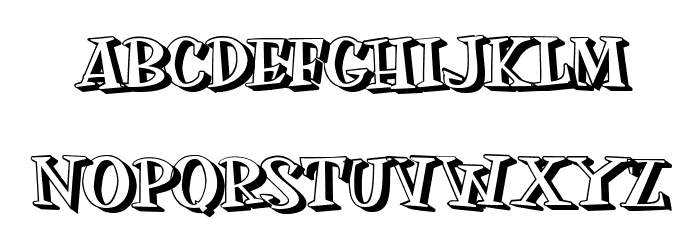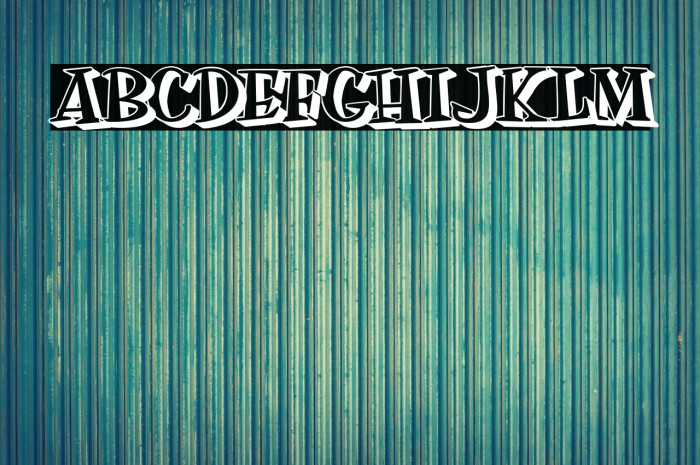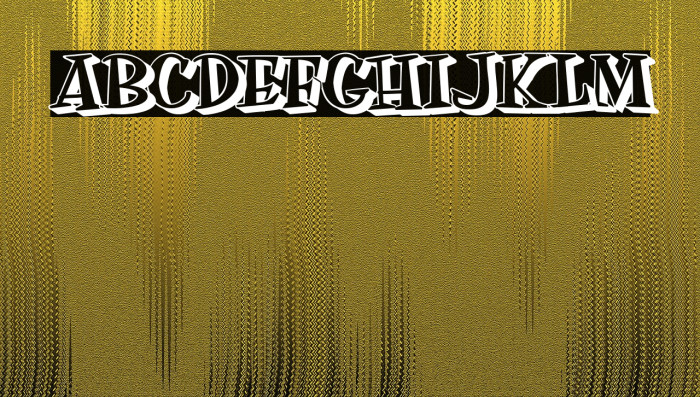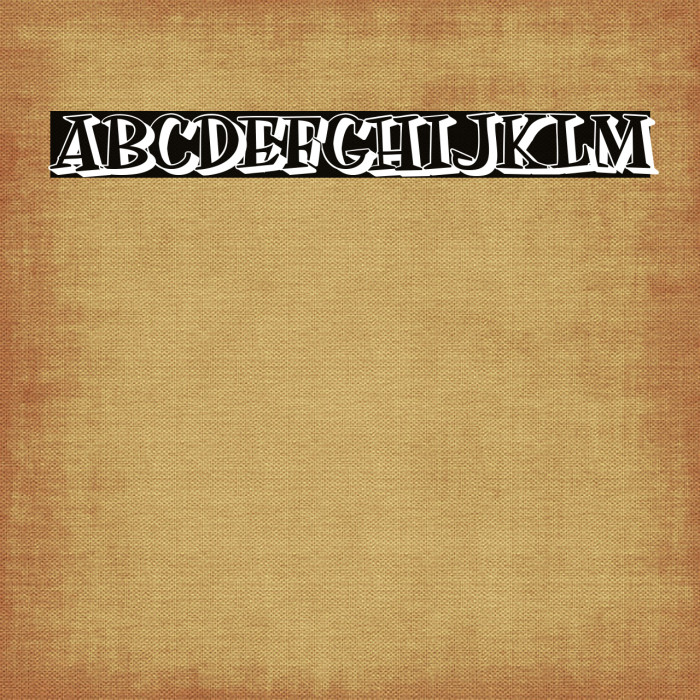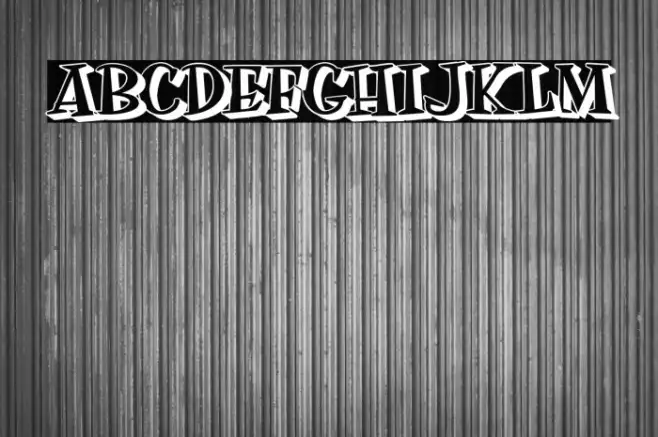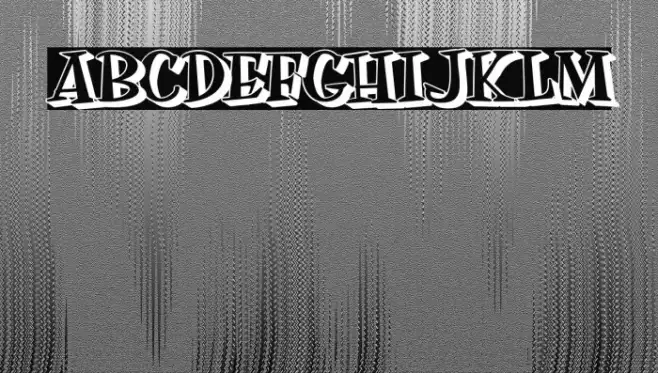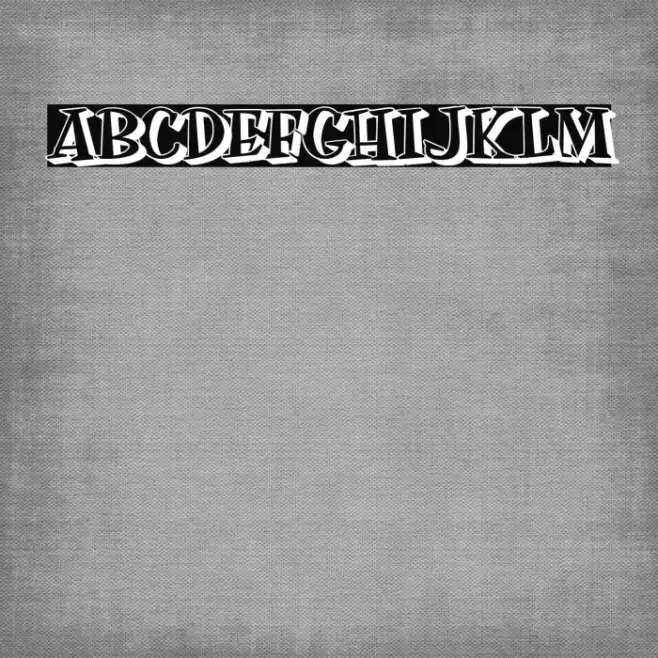
MOSKITOES SHADOW Font
This font features a bold, shadowed style that gives it a three-dimensional appearance. The uppercase letters are designed with a strong, impactful presence, making them ideal for attention-grabbing headlines. The shadow effect adds depth and a playful touch, suitable for creative and dynamic projects. The characters are well-defined with a slight slant, enhancing the sense of movement and energy. This font is perfect for designs that require a bold statement, such as posters, banners, or logos. The overall style is decorative and modern, with a hint of retro flair.
A bold, shadowed font with a three-dimensional, playful style.
- Proposed Projects: Ideal for posters, banners, logos, and any design needing a bold, dynamic look.
- Overall Style: Modern, Decorative